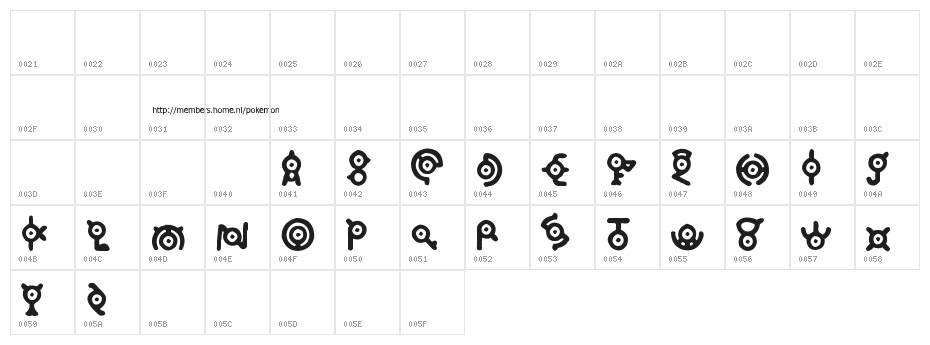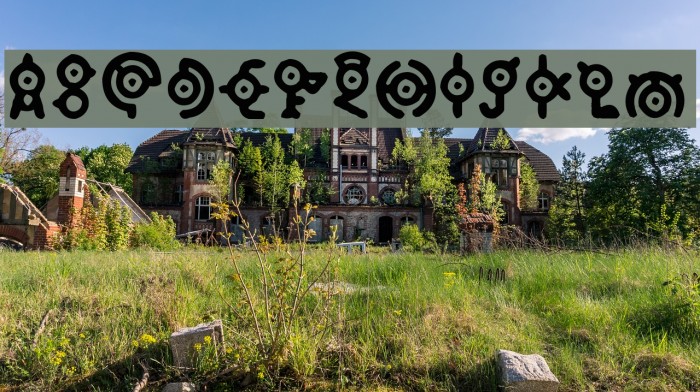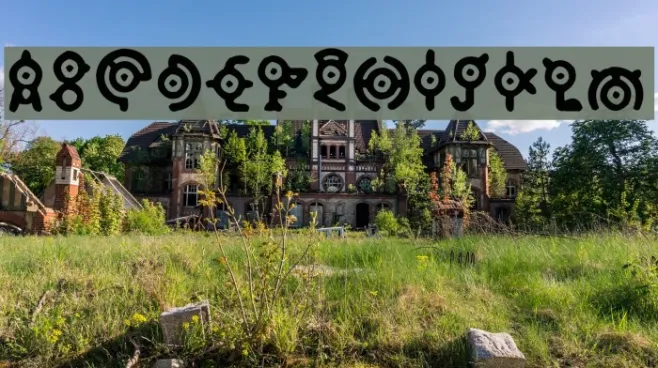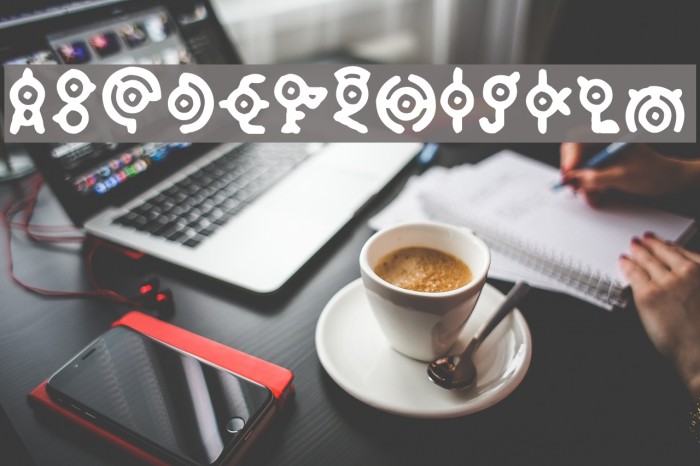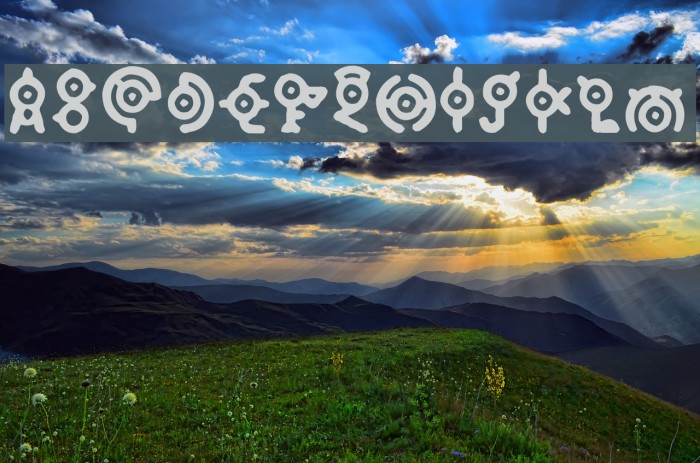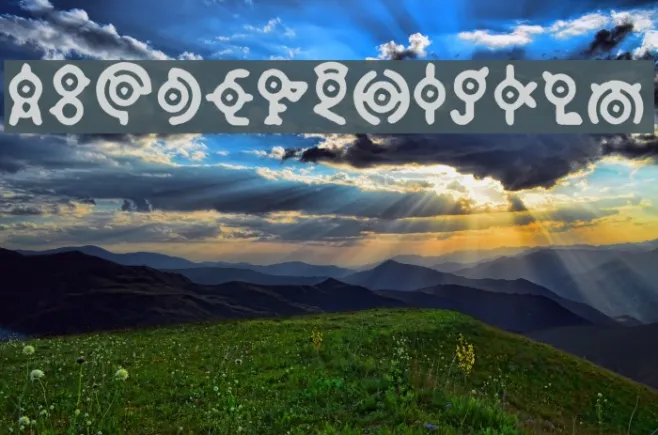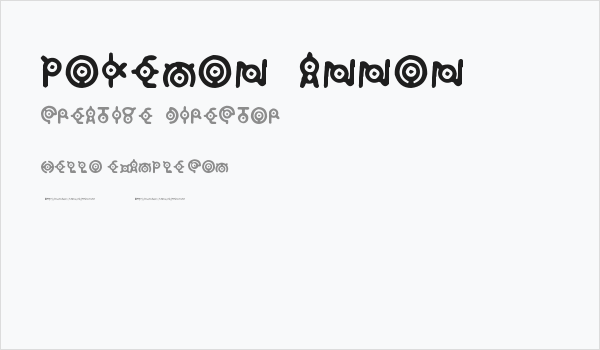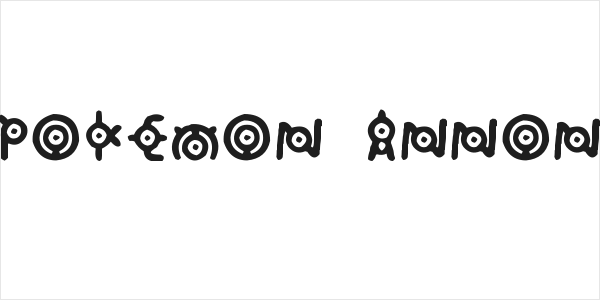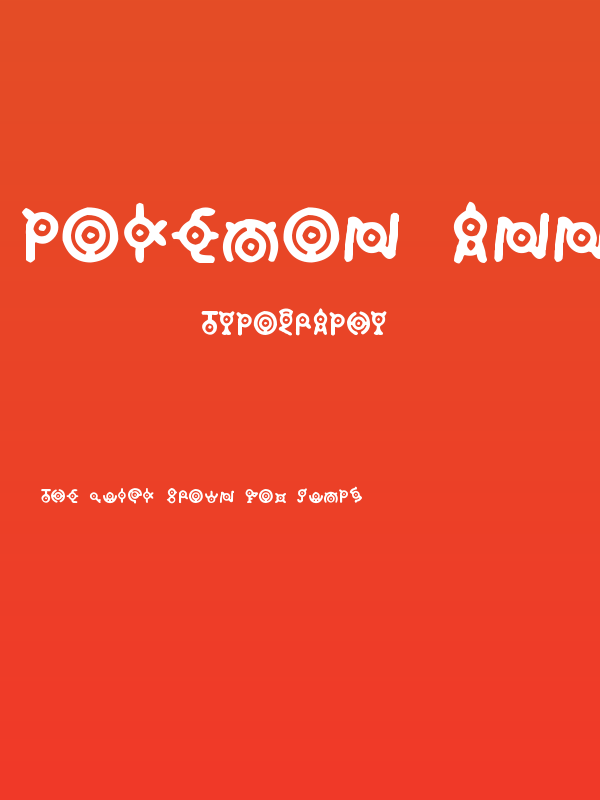
Pokemon: Annon Font
Pokemon: Annon Description
This font features a unique and whimsical design inspired by mysterious symbols. Each character is crafted with circular and geometric elements, creating an enigmatic and playful appearance. The characters have a bold and thick stroke, ensuring high visibility and impact. The design is reminiscent of ancient scripts or coded languages, making it ideal for projects that require a sense of mystery or fantasy. The characters are evenly spaced, providing a balanced and cohesive look across text. This font is perfect for creative projects, games, or themed events that aim to capture an audience's imagination.
| Use Case | Logos, Headlines, Themed Events |
| Proposed Projects | Ideal for fantasy games, themed events, or creative storytelling projects. |